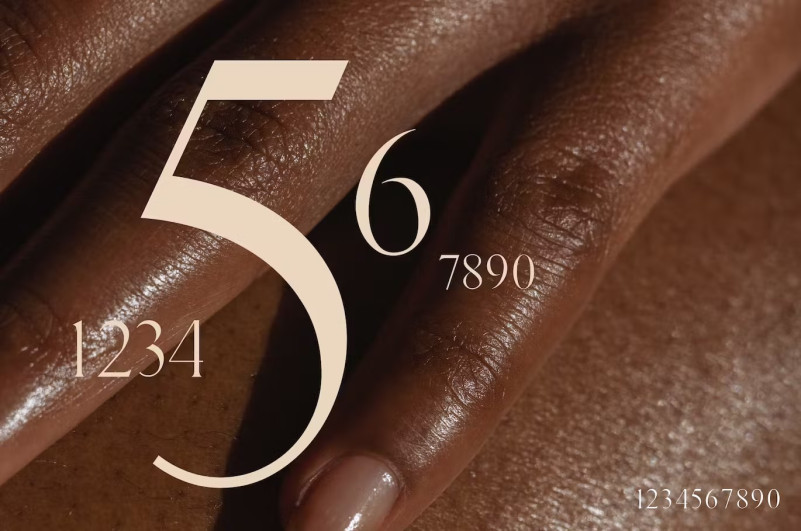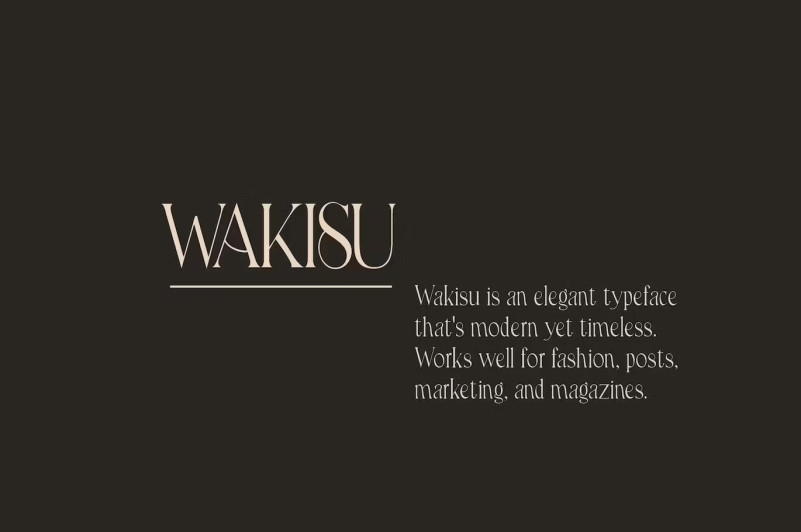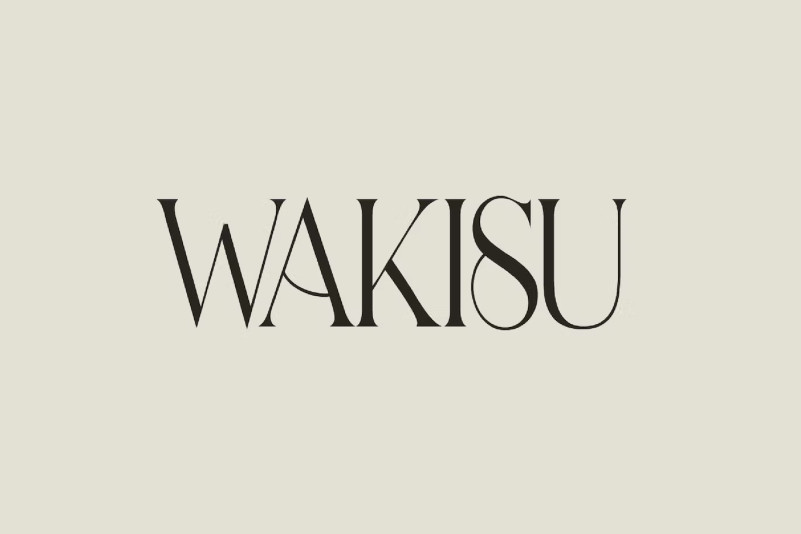
Wakisu Font
Wakisu Font has been specially designed to meet the needs of stylish brands. An eye-catching typeface in a serious yet elegant mansion. Suitable for creating elegant and chic designs such as logos, titles, magazines, packaging, stationery, etc. Add value to your brand with Wakisu.